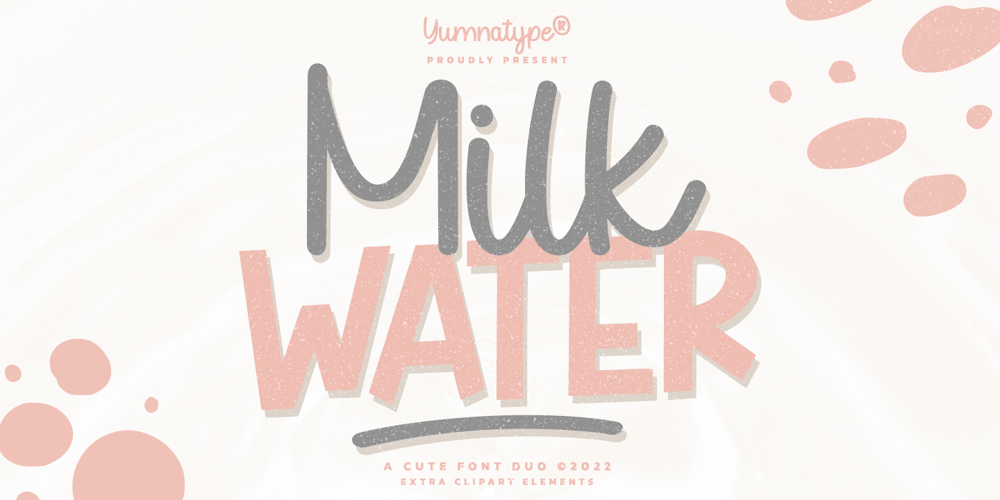
Milk Water Font Family was designed by Donis Miftahudin and published by Yumna Type. Milk Water contains 3 styles and family package options. Be a the ultimate you with gorgeous style font. The awesome Milk Water. It is a beautiful font duo that reflects youth, power, yet cuteness. The weight of the display font brings strength to any title or header you apply to it. On the other hand, the curve of the script font also convey a sense of cuteness. Features: Stylistic Sets Ligatures Multilingual Supports Numerals and Punctuations Thank you for purchasing premium fonts from our studio. If you have any further questions, don’t hesitate to contact us. Happy Designing.